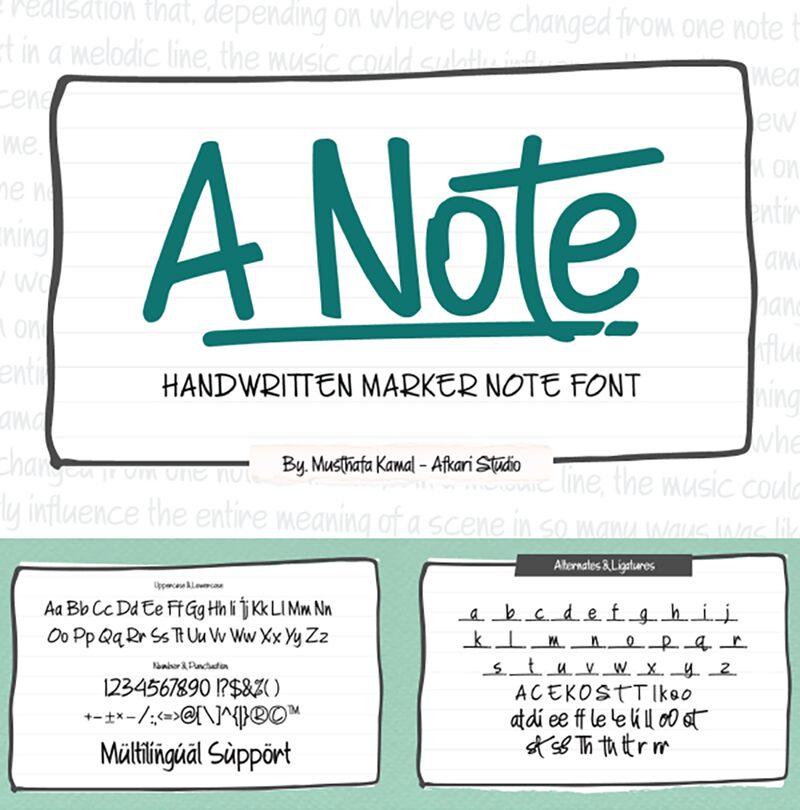
A Note
A Note is a charming and playful handwritten font that will add a touch of whimsy to your designs. Created by Musthafa Kamal Emje of Afkari Studio, this font has a unique character that is both fun and functional. With its natural strokes and irregular shapes, A Note is perfect for projects that require a personal touch or playful feel. From greeting cards to posters, this font will bring life to any project it's used in. So let your creativity flow and express yourself with A Note!